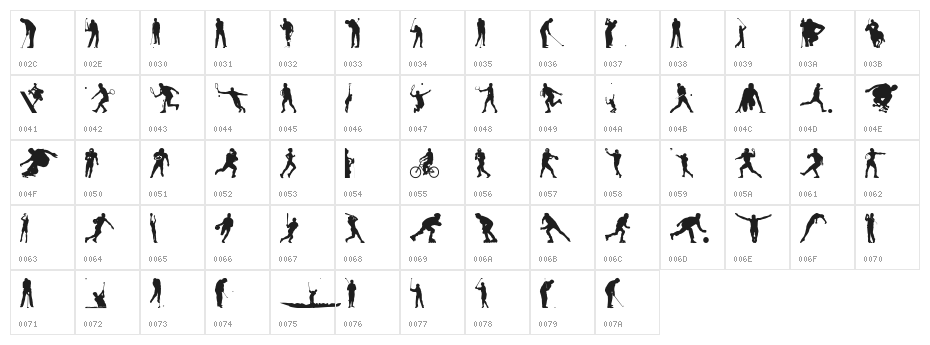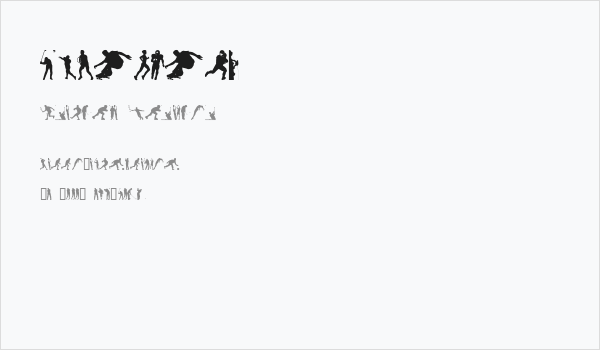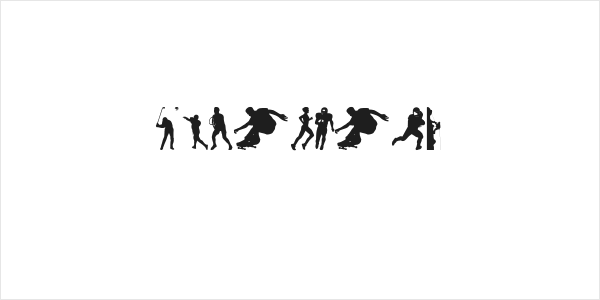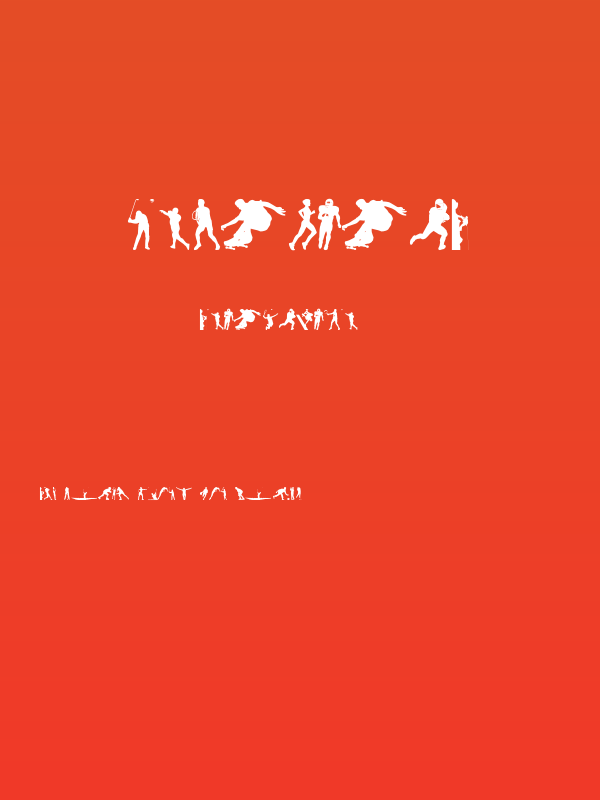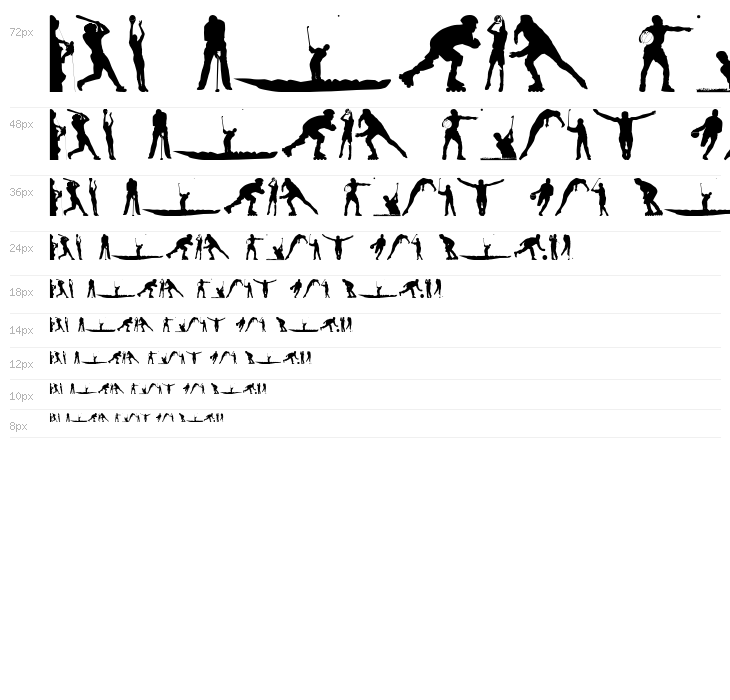
4YEOSPORT Font
| Общий стиль | Decorative, Thematic, Playful |
| Область применения | Headlines, Posters, Themed Graphics |
| Рекомендуемые проекты | Sports event posters, athletic branding, youth sports flyers, themed party invitations, educational materials about sports. |